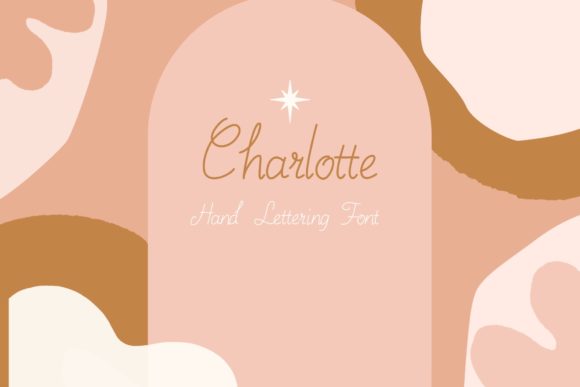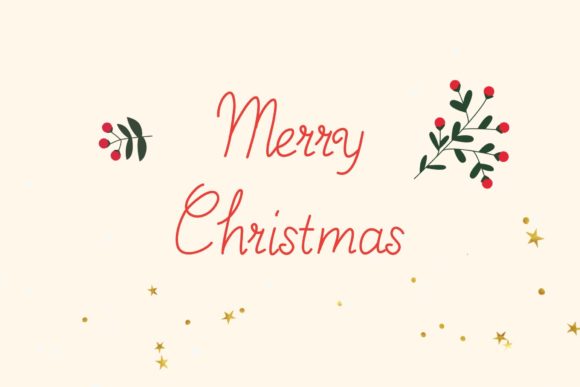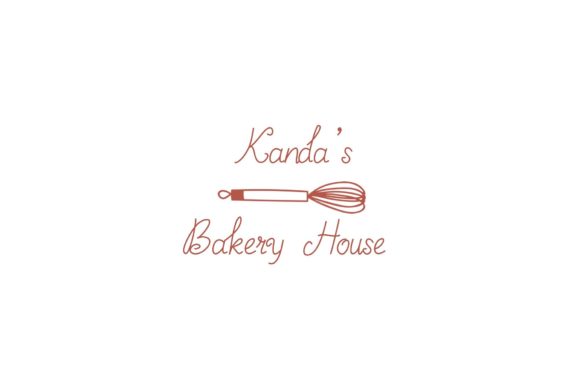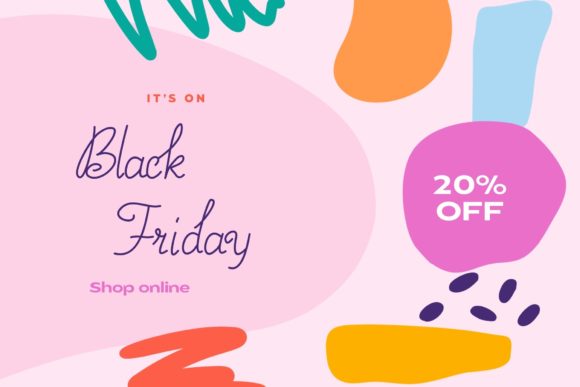
Charlotte Font
About Charlotte Font
Charlotte is a delicate and chic handwritten font. Add this fine looking font to each of your love letters, wedding invitations or favorite design ideas, and you will be amazed by the outcome.